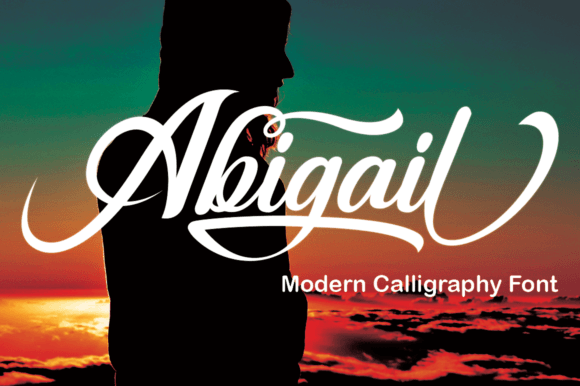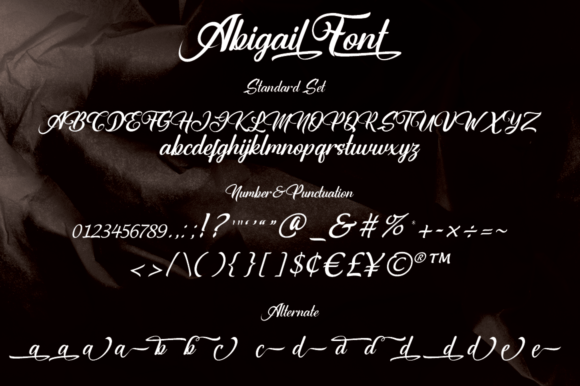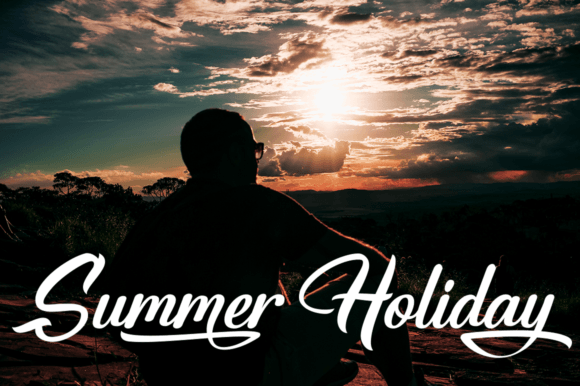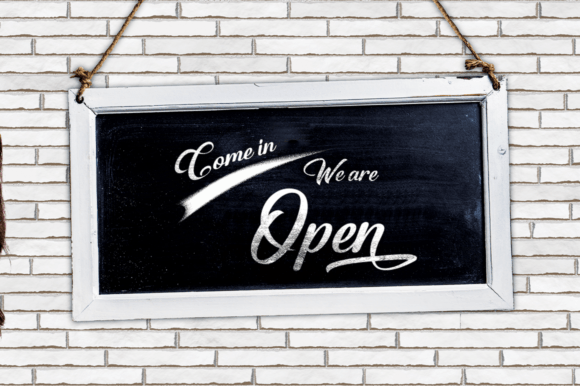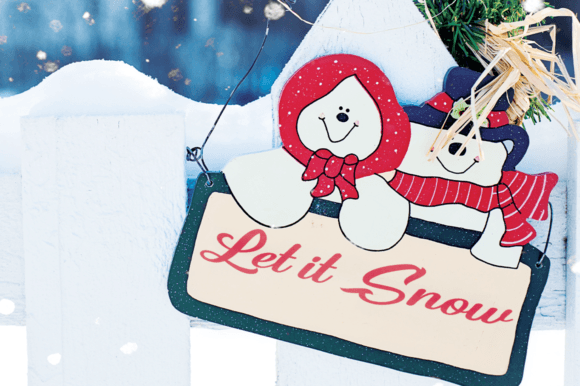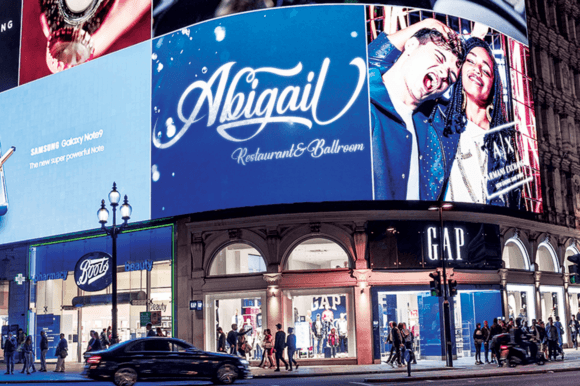
Abigail Font
About Abigail Font
“Abigail” is a neat and beautiful handwritten font that captures an elegant touch, making it an ideal choice for a variety of creative projects. This font is particularly well-suited for favorite projects like wedding invitations, apparel designs, social media graphics, and more. Its distinct and timeless style is sure to captivate your audience and elevate your designs.
The charm of “Abigail” lies in its ability to convey elegance and timeless beauty through its carefully crafted characters. Its handwritten style exudes sophistication, adding a touch of refined grace to your design projects.
Whether you’re creating wedding invitations that require a touch of elegance, designing apparel items with a timeless aesthetic, crafting eye-catching social media graphics, or working on any project that demands a sense of grace and style, “Abigail” is the font that can bring your ideas to life.
In the world of design, creating an impression of sophistication and timeless beauty is essential for certain projects, and “Abigail” excels in this regard. It ensures that your projects not only look visually appealing but also convey a feeling of elegance and enduring style, leaving a lasting and stylish impact on your audience.
In summary, “Abigail” is more than just a font; it’s a design asset that effortlessly combines elegance and timeless beauty. Its beautifully crafted characters make it suitable for a wide range of projects, allowing you to create designs that are not only visually captivating but also exude an air of grace and enduring style. Embrace “Abigail” and let its distinct and timeless charm enhance your creative endeavors, making them spectacular and memorable.